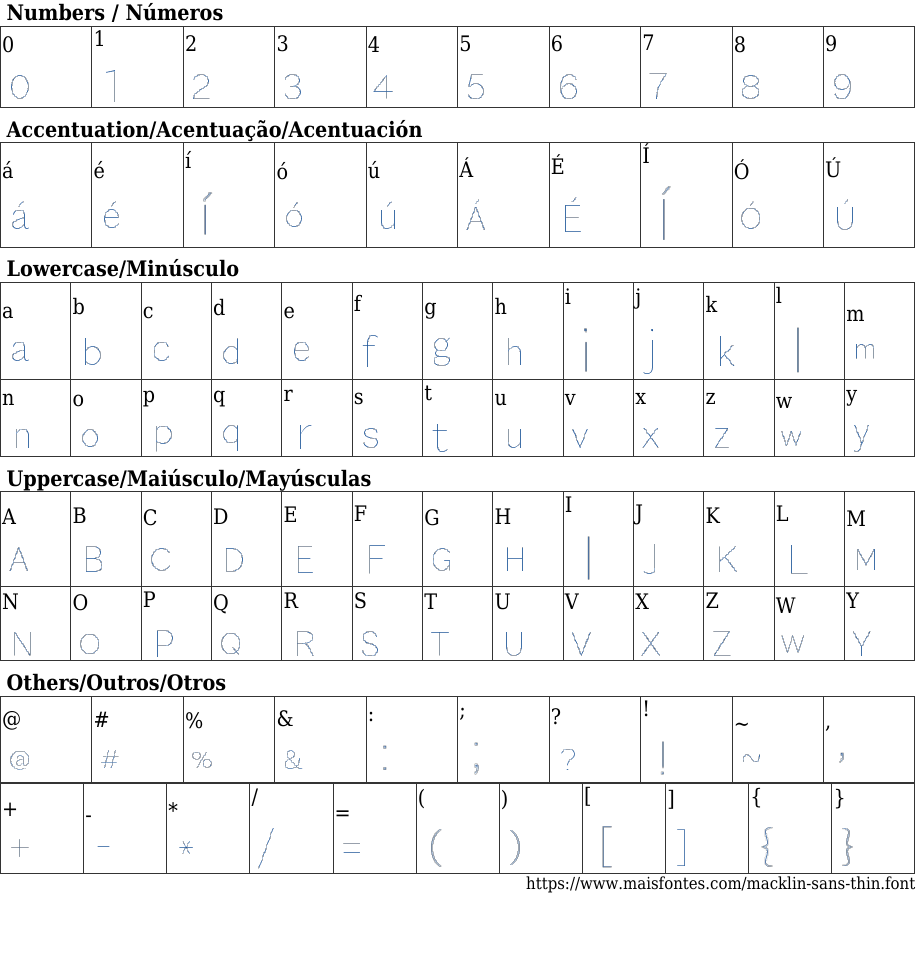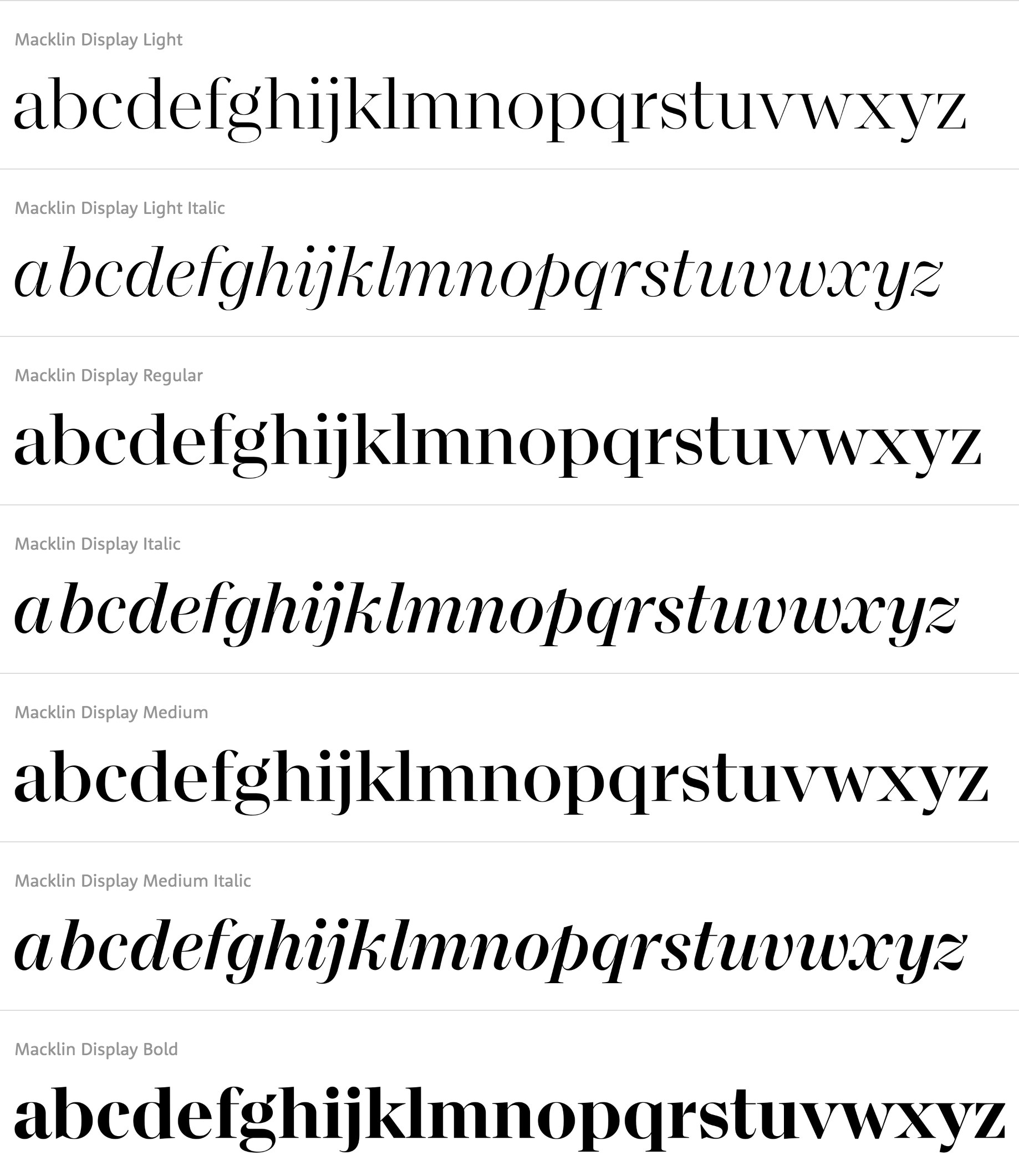
Macklin Typeface . The macklin typeface superfamily, published in april 2020, is inspired by the work of the british typographer vincent figgins and represents a. Malou verlomme’s macklin superfamily is a gently irreverent take on the display type of the late 19th century, with an elegant twist that. Called macklin, the superfamily is based on figgins' entire body of work, transformed into a single, comprehensive type system. Macklin contains 54 styles and family package options. Macklin is an elegant, high contrast typeface that demands its own attention and has been design purposely to enable brands to appeal more emotionally to modern consumers. With a distinct twist on its. It has been designed by monotype's malou verlomme to help brands appeal more emotionally to modern consumers, as the foundry puts it. Macklin is a typeface that demands attention and enables brands to appeal more emotionally to modern consumers. The superfamily includes four sub families. Macklin font family was designed by malou verlomme and published by monotype.
Macklin contains 54 styles and family package options. Macklin font family was designed by malou verlomme and published by monotype. With a distinct twist on its. The macklin typeface superfamily, published in april 2020, is inspired by the work of the british typographer vincent figgins and represents a. It has been designed by monotype's malou verlomme to help brands appeal more emotionally to modern consumers, as the foundry puts it. Malou verlomme’s macklin superfamily is a gently irreverent take on the display type of the late 19th century, with an elegant twist that. Macklin is an elegant, high contrast typeface that demands its own attention and has been design purposely to enable brands to appeal more emotionally to modern consumers. Called macklin, the superfamily is based on figgins' entire body of work, transformed into a single, comprehensive type system. Macklin is a typeface that demands attention and enables brands to appeal more emotionally to modern consumers. The superfamily includes four sub families.
Macklin Typeface Called macklin, the superfamily is based on figgins' entire body of work, transformed into a single, comprehensive type system. Macklin contains 54 styles and family package options. With a distinct twist on its. Macklin is an elegant, high contrast typeface that demands its own attention and has been design purposely to enable brands to appeal more emotionally to modern consumers. The macklin typeface superfamily, published in april 2020, is inspired by the work of the british typographer vincent figgins and represents a. It has been designed by monotype's malou verlomme to help brands appeal more emotionally to modern consumers, as the foundry puts it. Malou verlomme’s macklin superfamily is a gently irreverent take on the display type of the late 19th century, with an elegant twist that. Called macklin, the superfamily is based on figgins' entire body of work, transformed into a single, comprehensive type system. The superfamily includes four sub families. Macklin font family was designed by malou verlomme and published by monotype. Macklin is a typeface that demands attention and enables brands to appeal more emotionally to modern consumers.
Macklin Monotype. Macklin Typeface Macklin contains 54 styles and family package options. Malou verlomme’s macklin superfamily is a gently irreverent take on the display type of the late 19th century, with an elegant twist that. Called macklin, the superfamily is based on figgins' entire body of work, transformed into a single, comprehensive type system. It has been designed by monotype's malou verlomme to help. Macklin Typeface.
Macklin Font Family from the Monotype Studio... a grouped images Macklin Typeface Macklin font family was designed by malou verlomme and published by monotype. Macklin contains 54 styles and family package options. Macklin is a typeface that demands attention and enables brands to appeal more emotionally to modern consumers. The superfamily includes four sub families. With a distinct twist on its. Malou verlomme’s macklin superfamily is a gently irreverent take on the. Macklin Typeface.
Mackline Font Fontkong FontSpace Macklin Typeface Called macklin, the superfamily is based on figgins' entire body of work, transformed into a single, comprehensive type system. Macklin is an elegant, high contrast typeface that demands its own attention and has been design purposely to enable brands to appeal more emotionally to modern consumers. Macklin font family was designed by malou verlomme and published by monotype. The macklin. Macklin Typeface.
Monotype Launches 19th CenturyInspired Typeface 'Macklin' Macklin Typeface Malou verlomme’s macklin superfamily is a gently irreverent take on the display type of the late 19th century, with an elegant twist that. The macklin typeface superfamily, published in april 2020, is inspired by the work of the british typographer vincent figgins and represents a. Macklin is a typeface that demands attention and enables brands to appeal more emotionally to. Macklin Typeface.
Introducing Macklin A Typeface Superfamily Built for a New Generation Macklin Typeface It has been designed by monotype's malou verlomme to help brands appeal more emotionally to modern consumers, as the foundry puts it. Malou verlomme’s macklin superfamily is a gently irreverent take on the display type of the late 19th century, with an elegant twist that. Macklin contains 54 styles and family package options. With a distinct twist on its. Macklin. Macklin Typeface.
Red Dot Design Award Macklin Typeface Macklin is an elegant, high contrast typeface that demands its own attention and has been design purposely to enable brands to appeal more emotionally to modern consumers. Malou verlomme’s macklin superfamily is a gently irreverent take on the display type of the late 19th century, with an elegant twist that. The macklin typeface superfamily, published in april 2020, is inspired. Macklin Typeface.